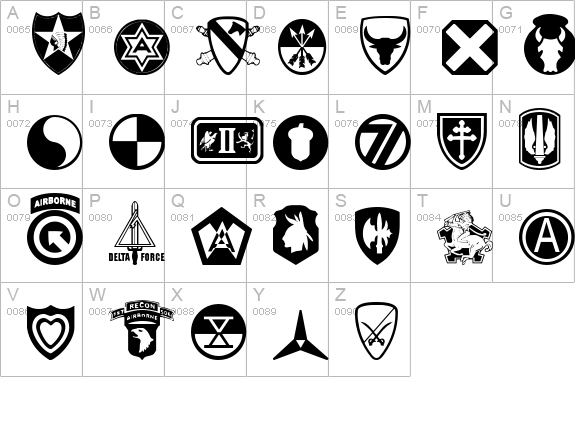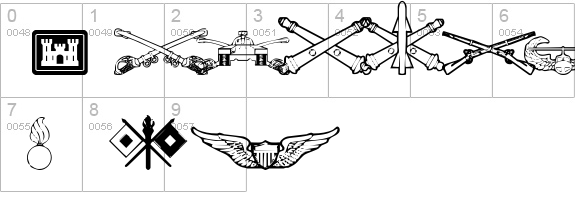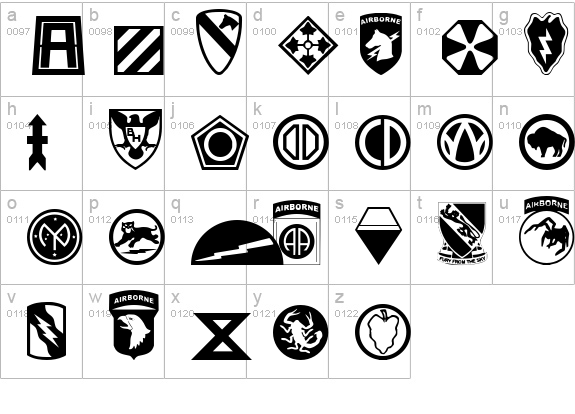
US Army II Font Details
US Army II font is a bold and commanding typeface that exudes strength and authority. Inspired by the typography used by the United States Army, this font is perfect for projects that require a military or patriotic theme. With its clean lines and rugged aesthetic, US Army II font is sure to make a powerful statement in any design. What's even better is that US Army II font is available for free download at FontsMarket.com. Whether you're working on a project for the armed forces, creating a poster for a patriotic event, or simply looking to add a touch of strength to your designs, US Army II font is the perfect choice. Download it today and unleash the power of this striking typeface in your next project.